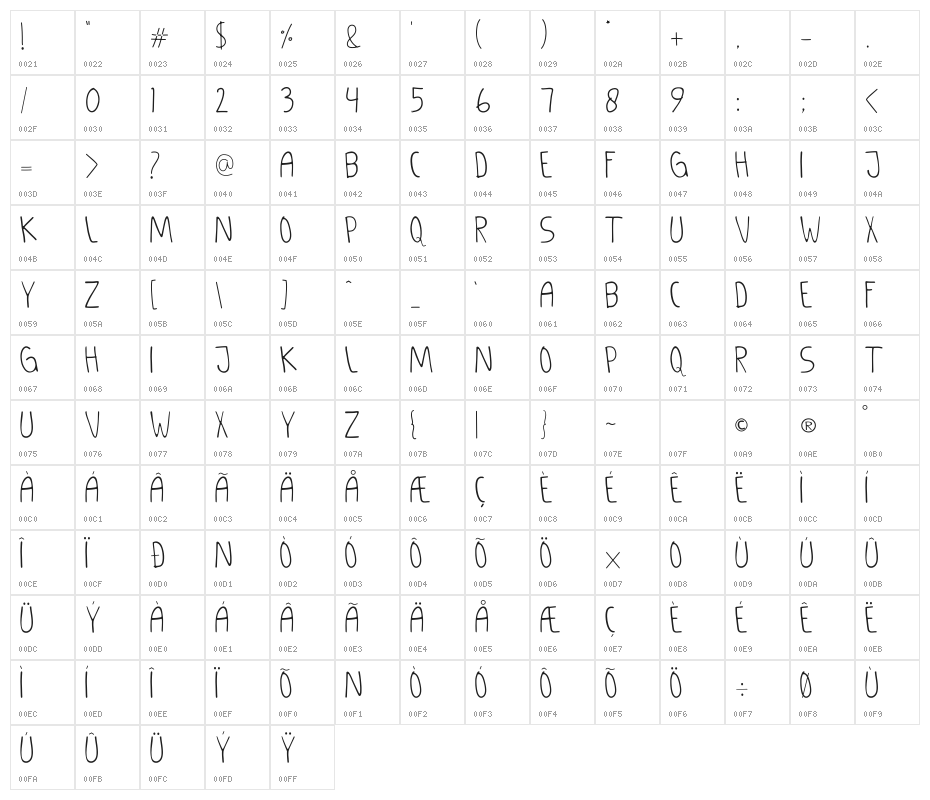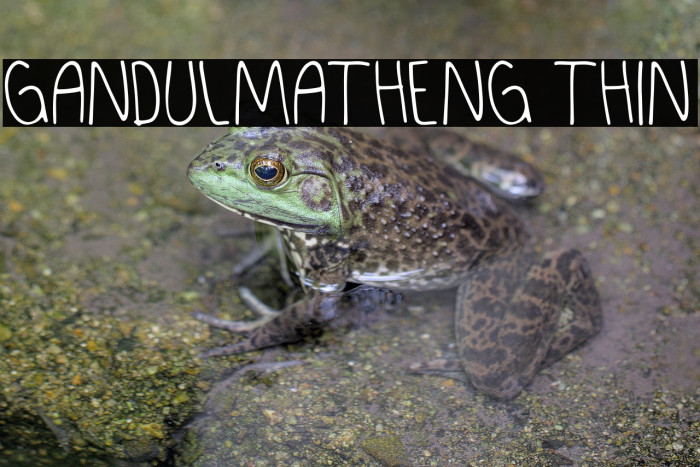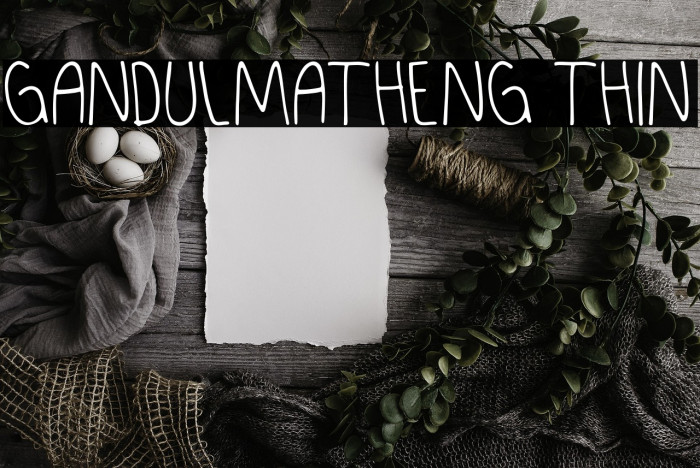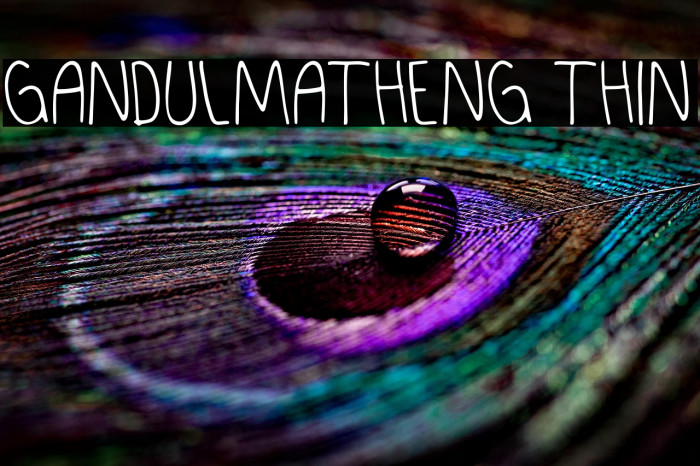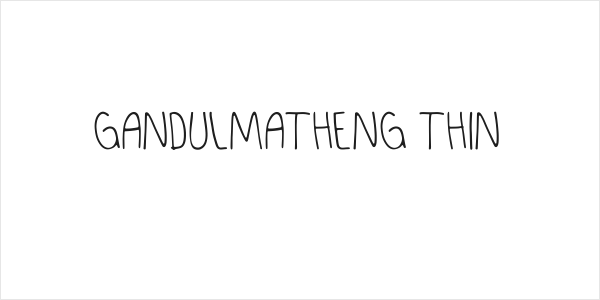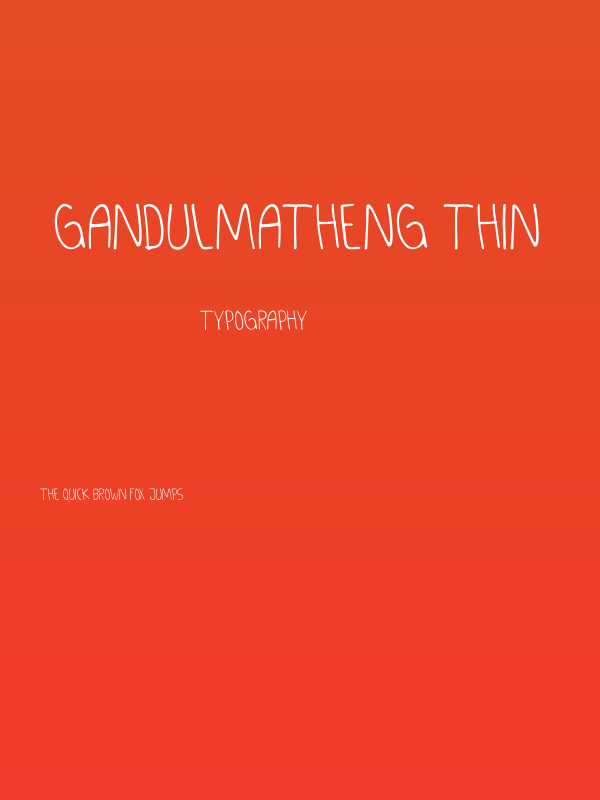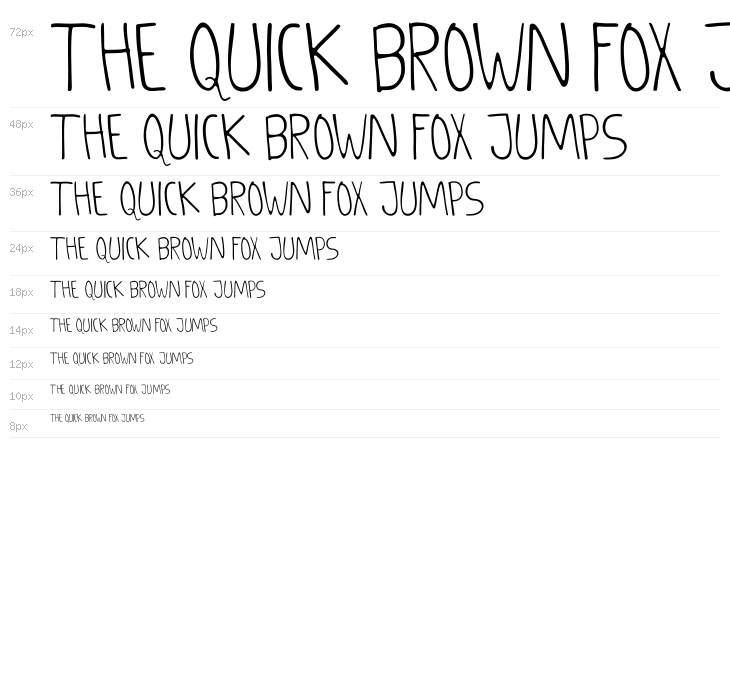
GANDULMATHENG Thin Font
GANDULMATHENG Thin Description
This font features a playful and casual handwritten style, characterized by its thin strokes and slightly irregular letterforms. The uppercase and lowercase letters maintain a consistent height, giving it a uniform appearance. The numerals and special characters follow the same whimsical design, making it suitable for informal and creative projects. Its simplicity and charm make it versatile for various uses, while the thin lines ensure it remains legible even at smaller sizes.
| Use Case | Headlines, Logos, Informal text |
| Proposed Projects | Ideal for greeting cards, children's books, casual invitations, and creative branding. |